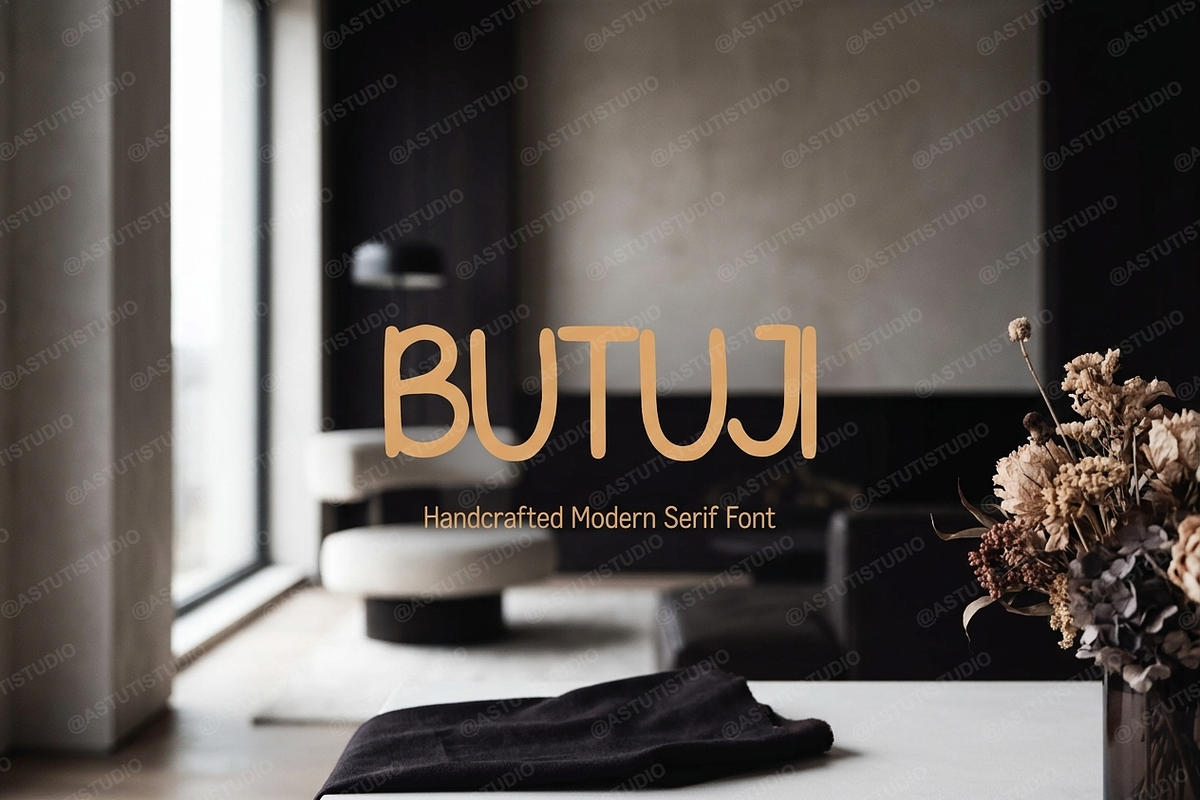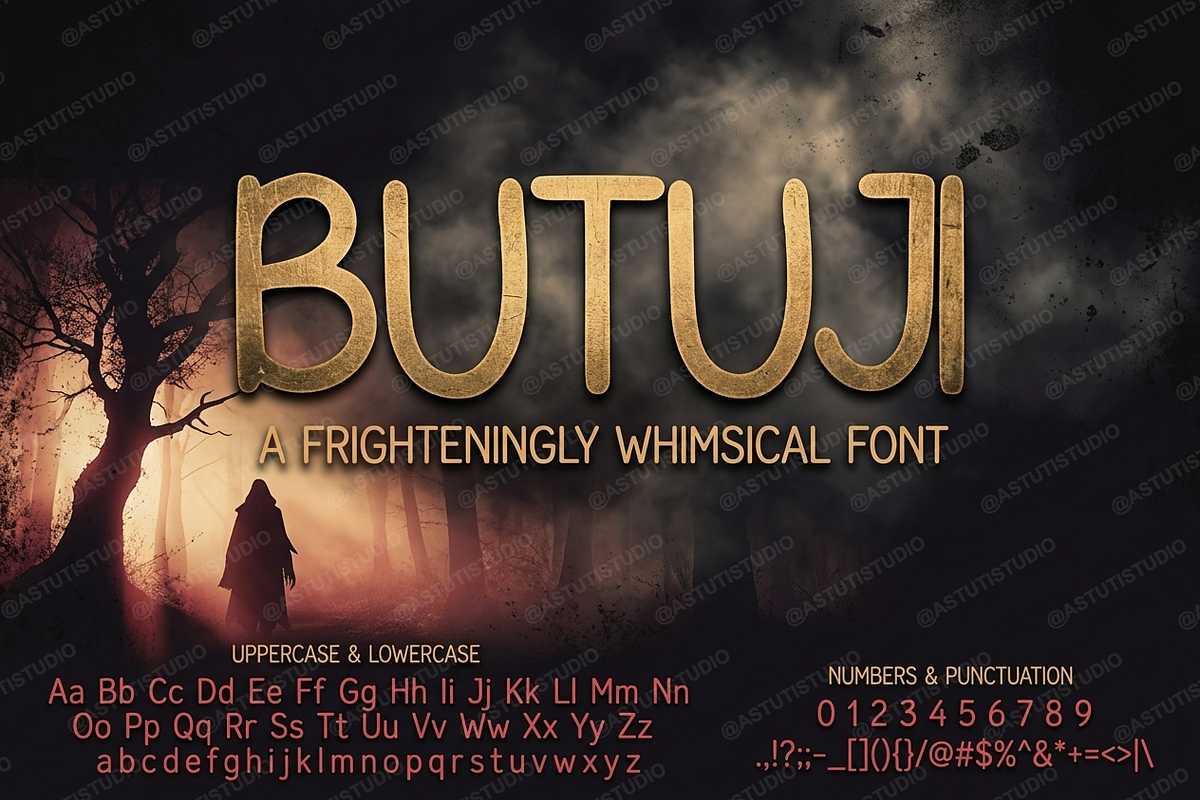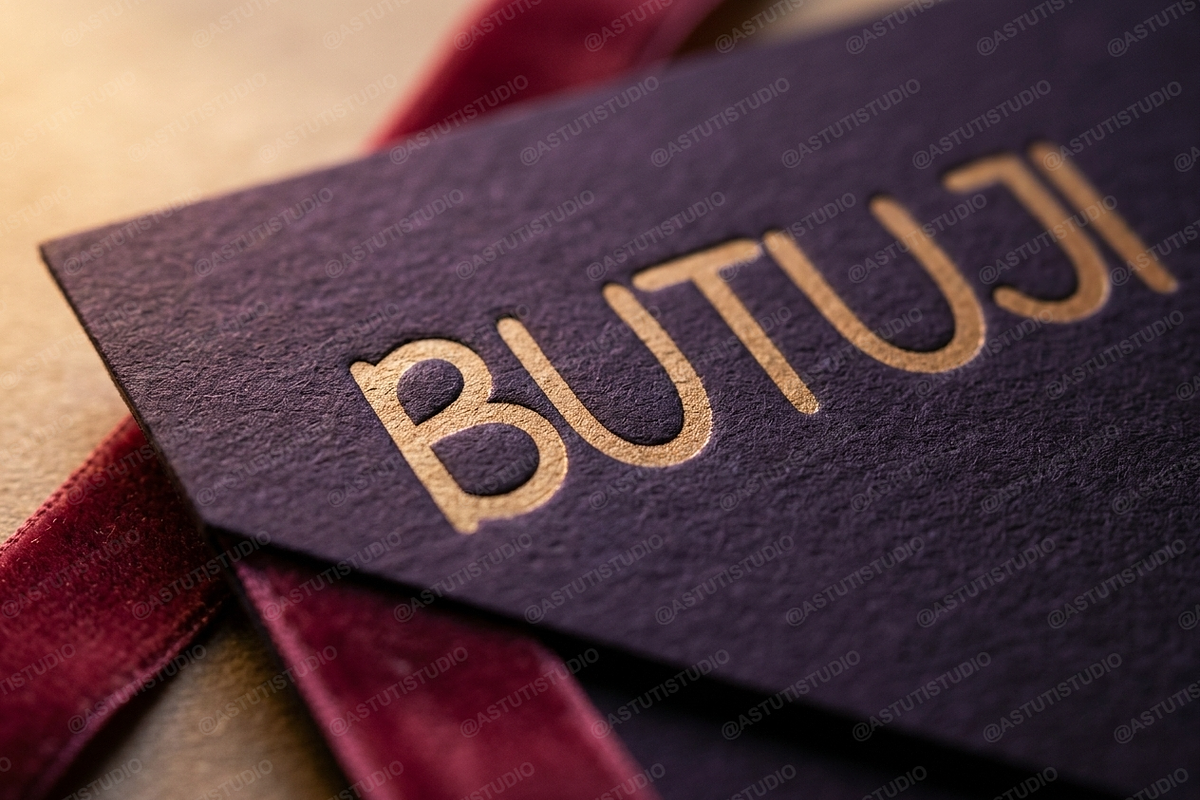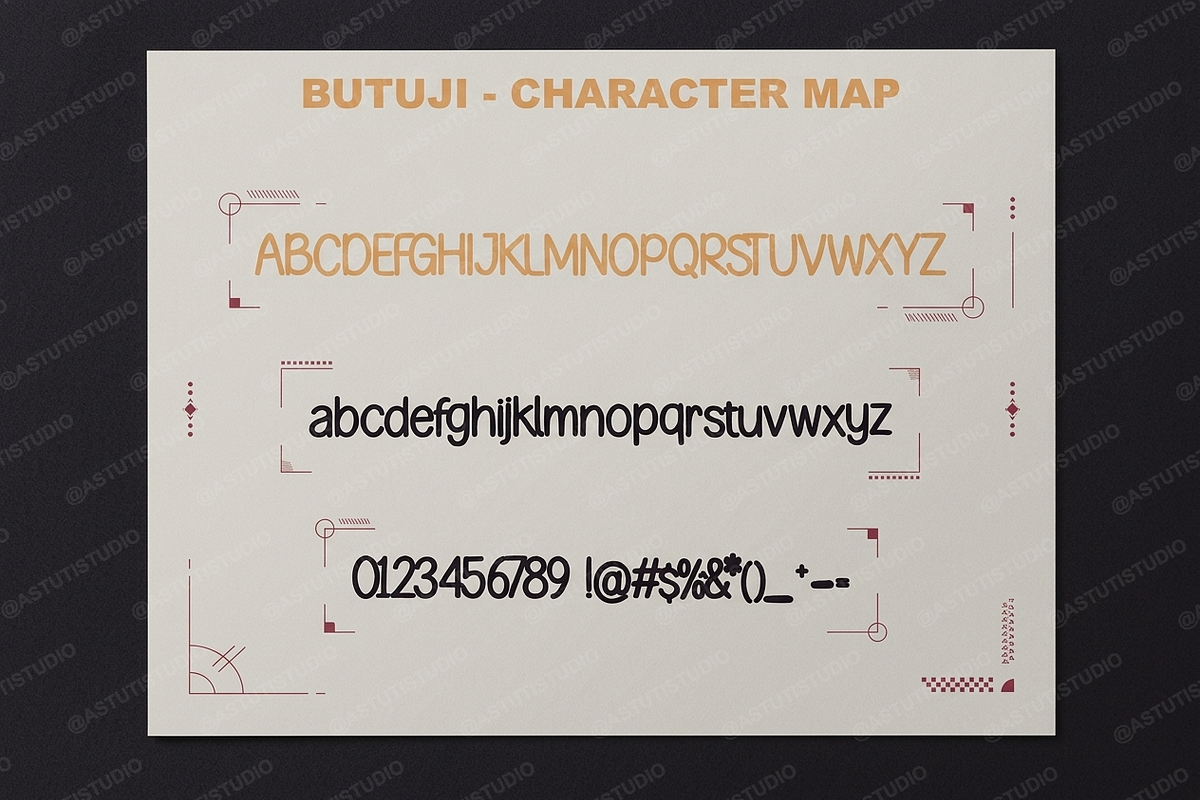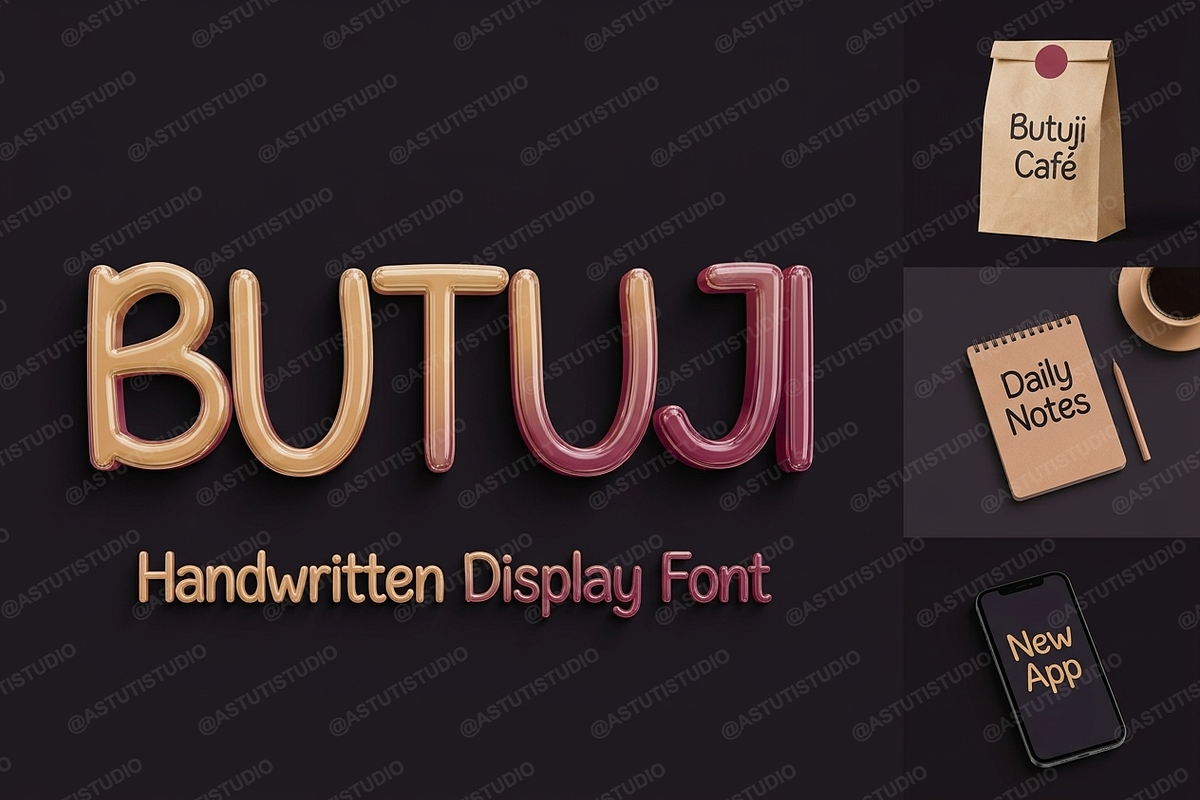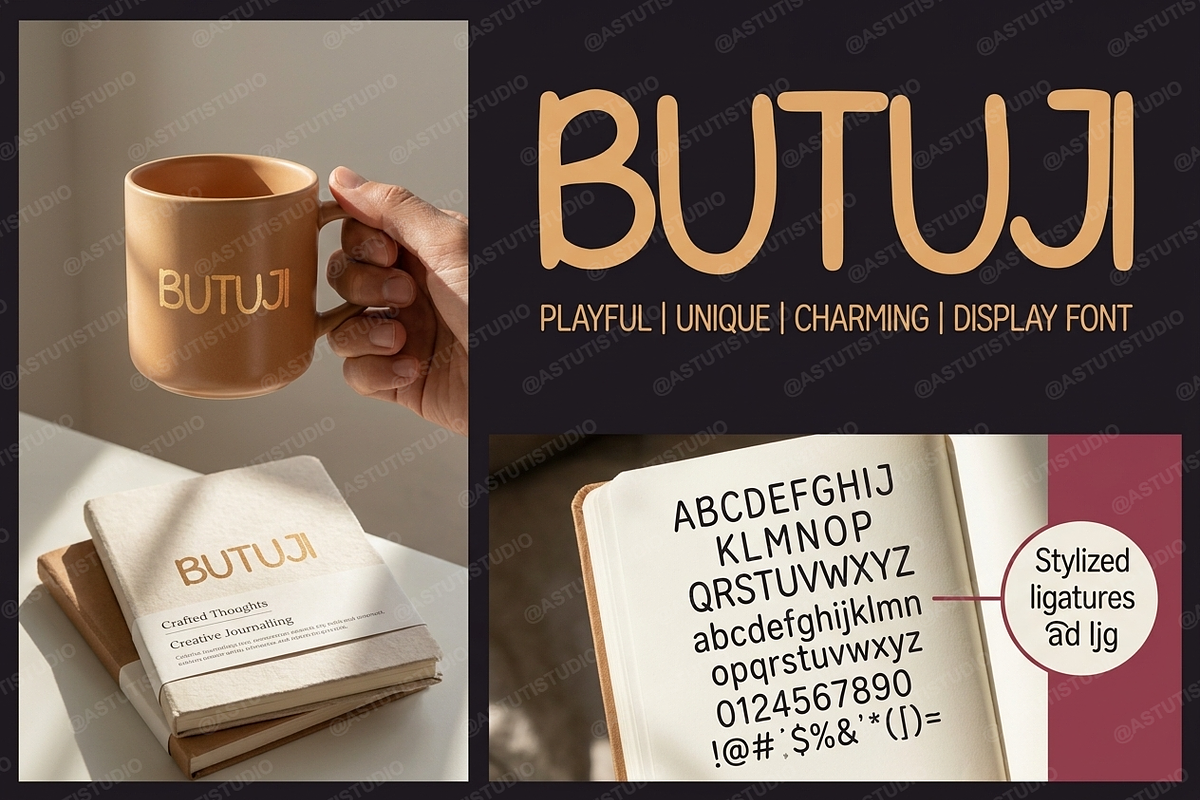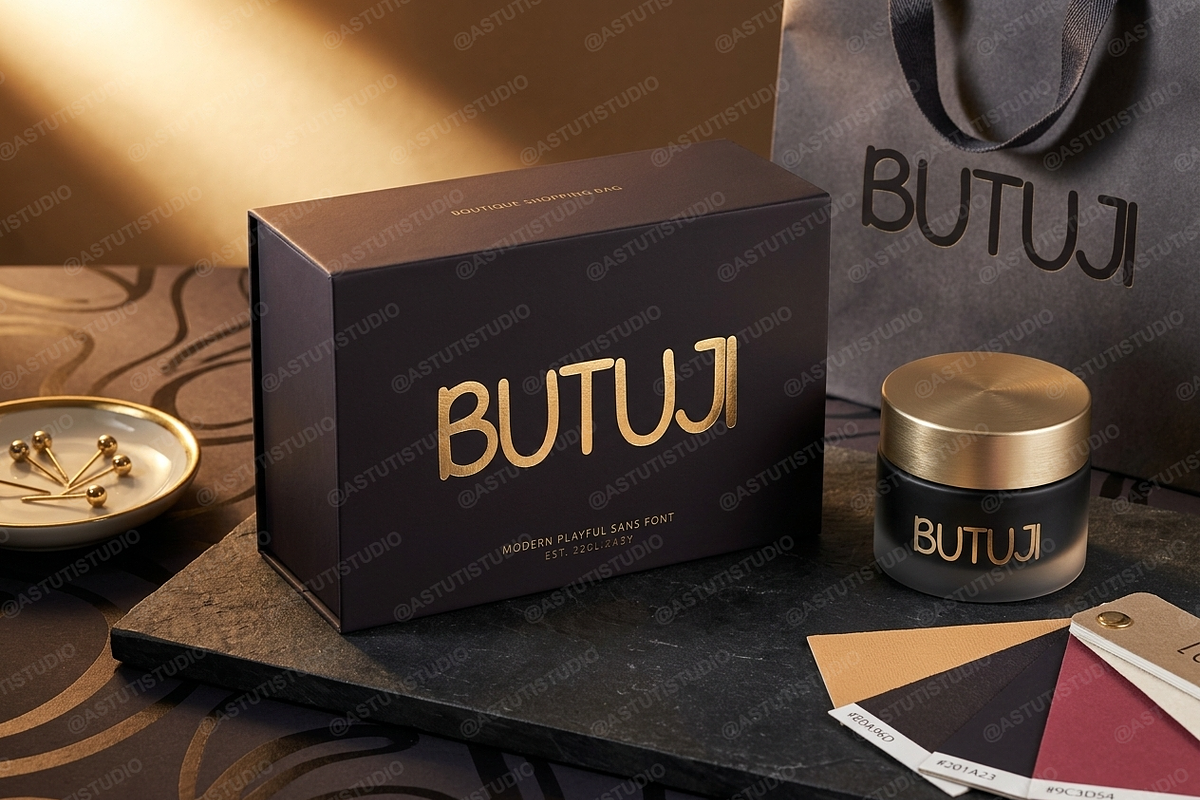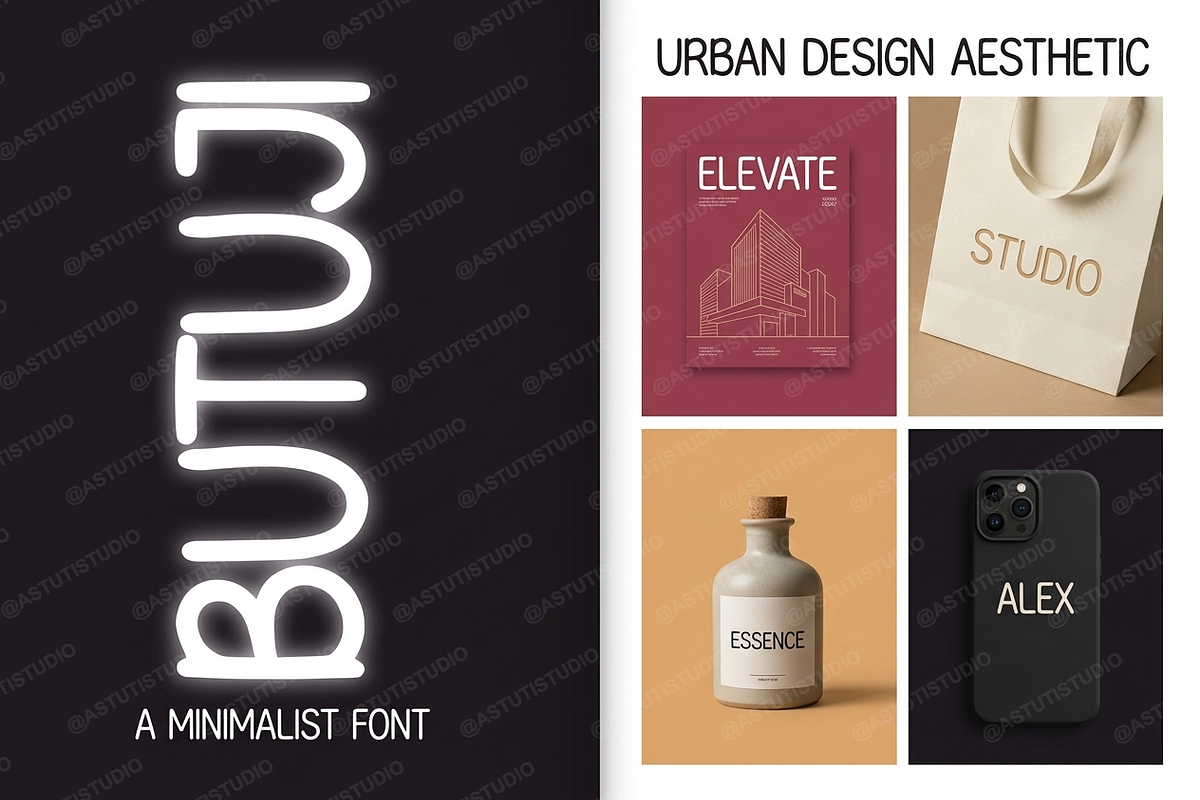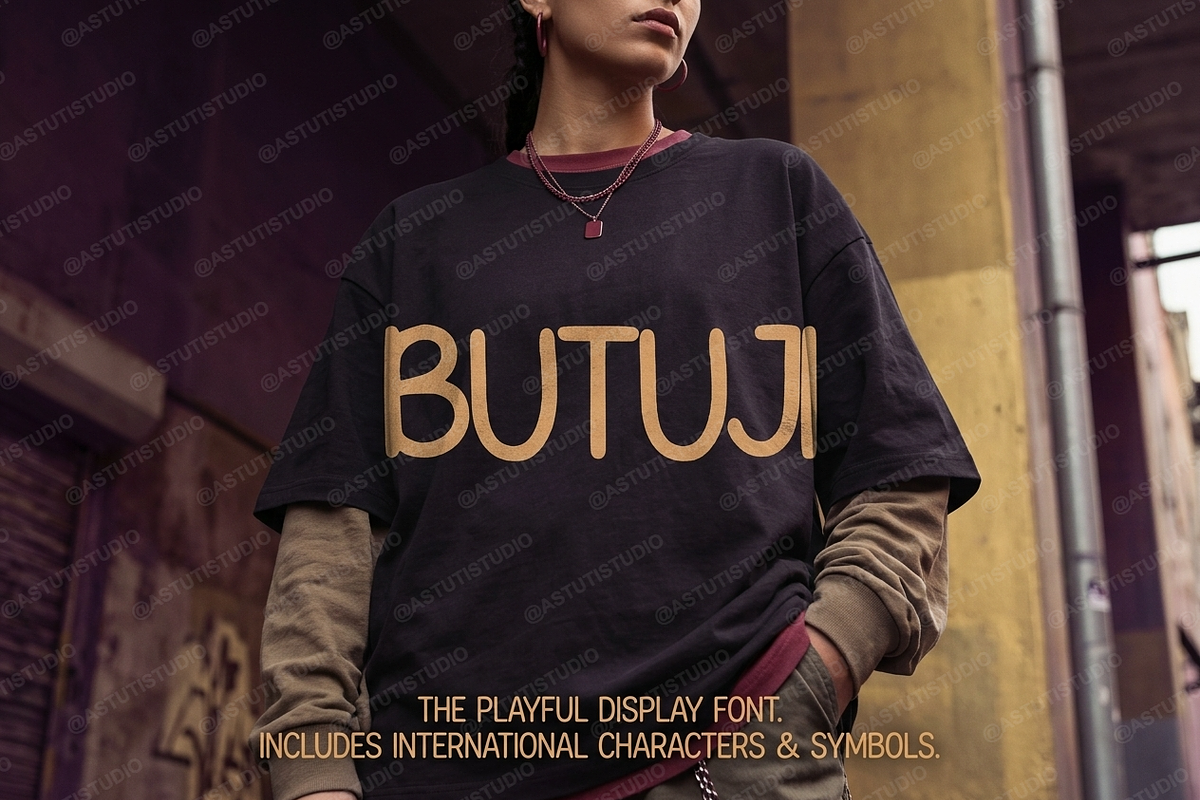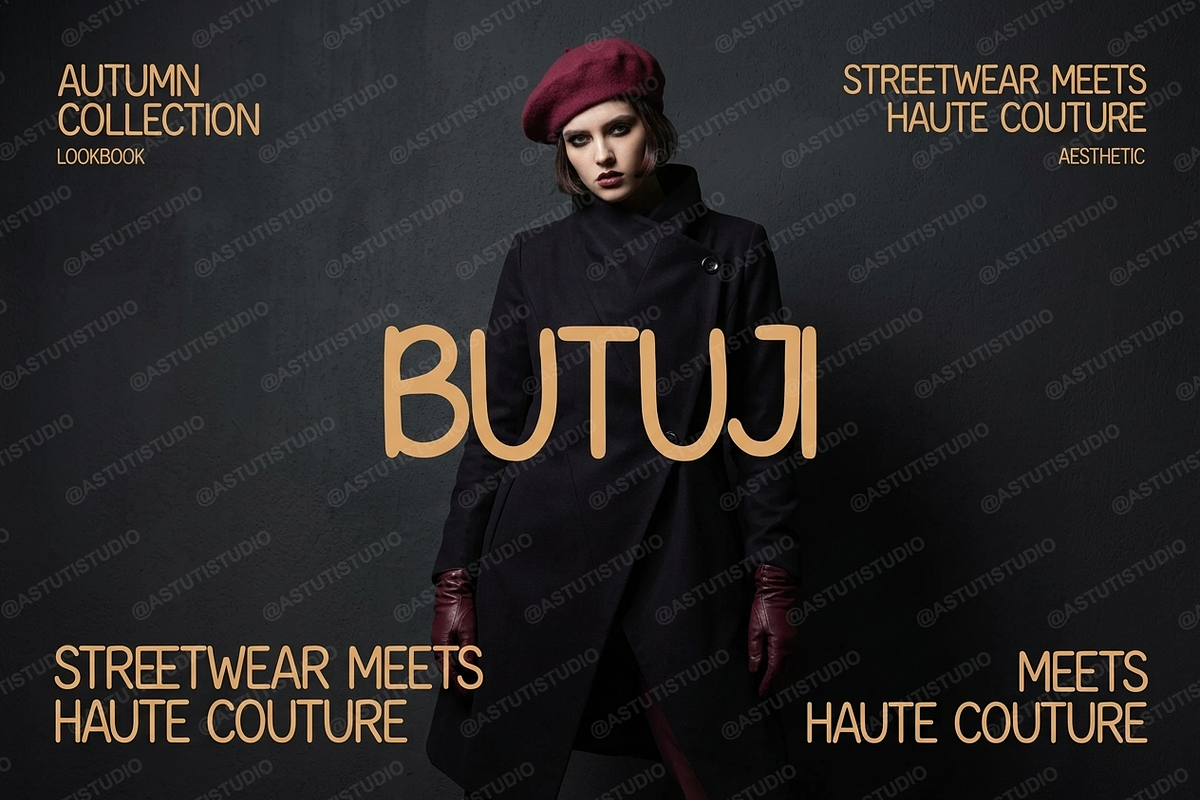
Butuji - Modern Luxury Serif
Butuji is a sophisticated serif font meticulously crafted for high-end aesthetics. It balances timeless elegance with contemporary flair, making it an essential tool for designers seeking a premium touch. Whether you are crafting a luxury brand identity, designing an editorial layout, or curating elevated social media content, Butuji provides a polished and professional finish.
- High contrast strokes for a refined look
- Unique ligatures and stylistic alternates
- Clean, legible letterforms across all sizes
- Full multilingual support for global projects
- Optimized for both print and digital media
- Extensive character set including numbers and punctuation
- Access to stylistic alternates via OpenType features